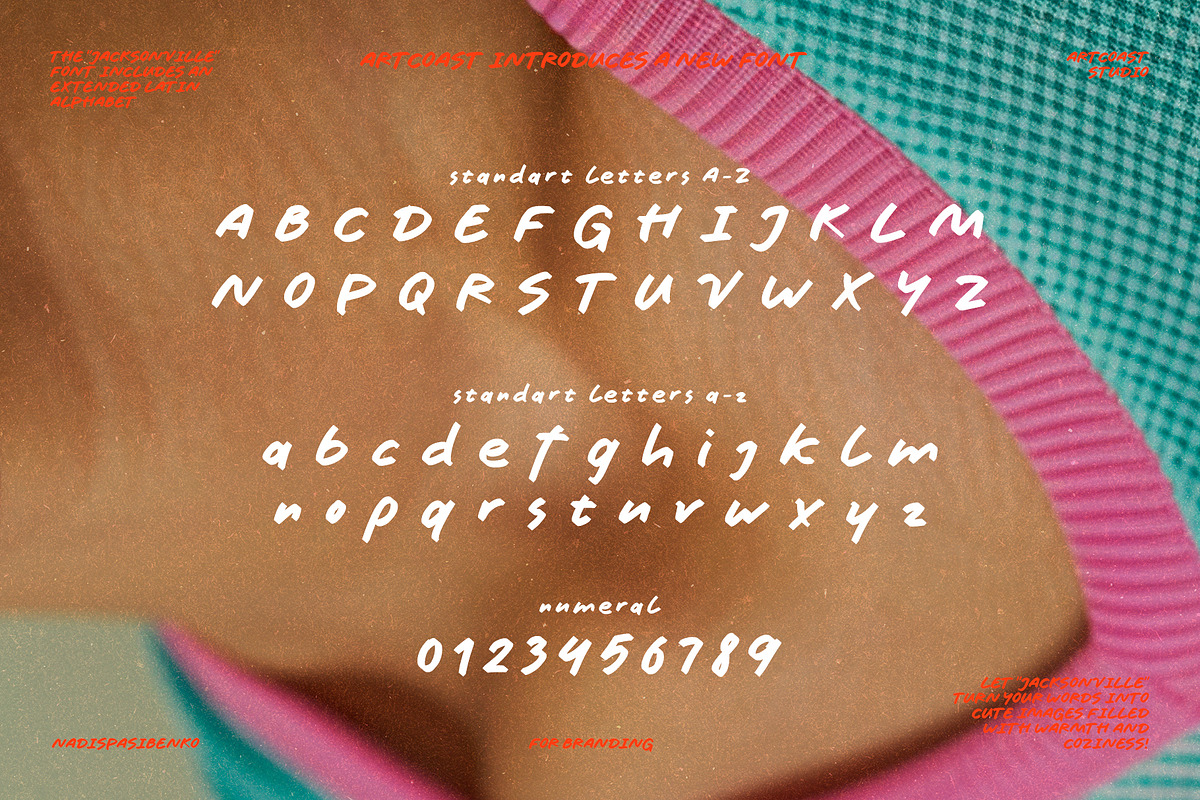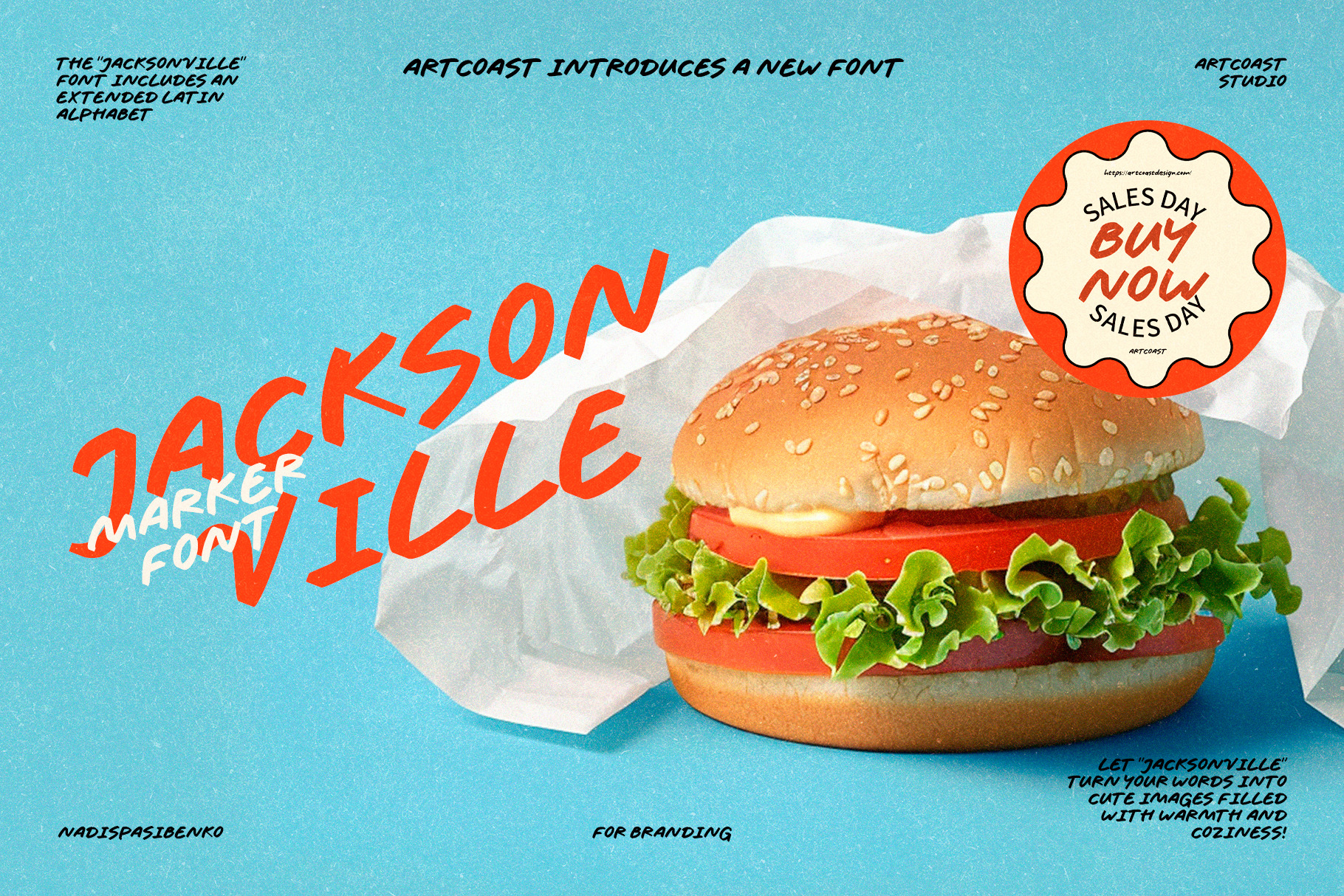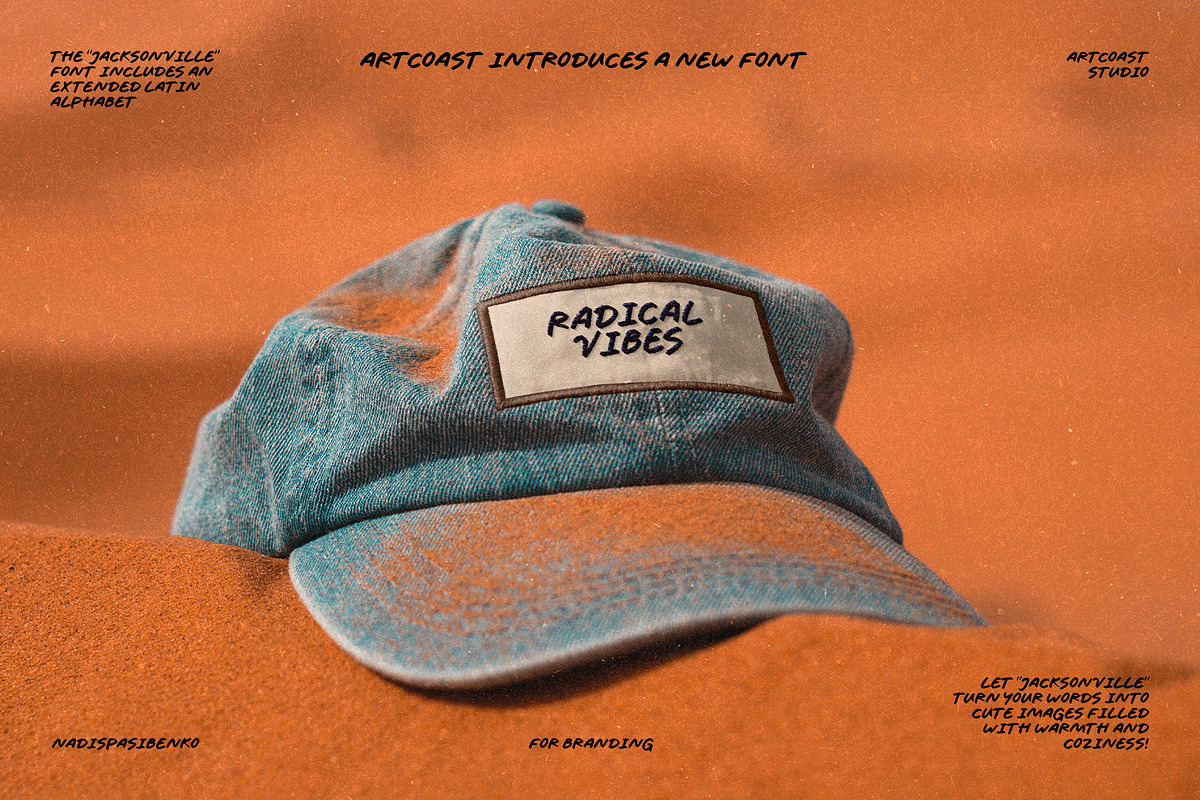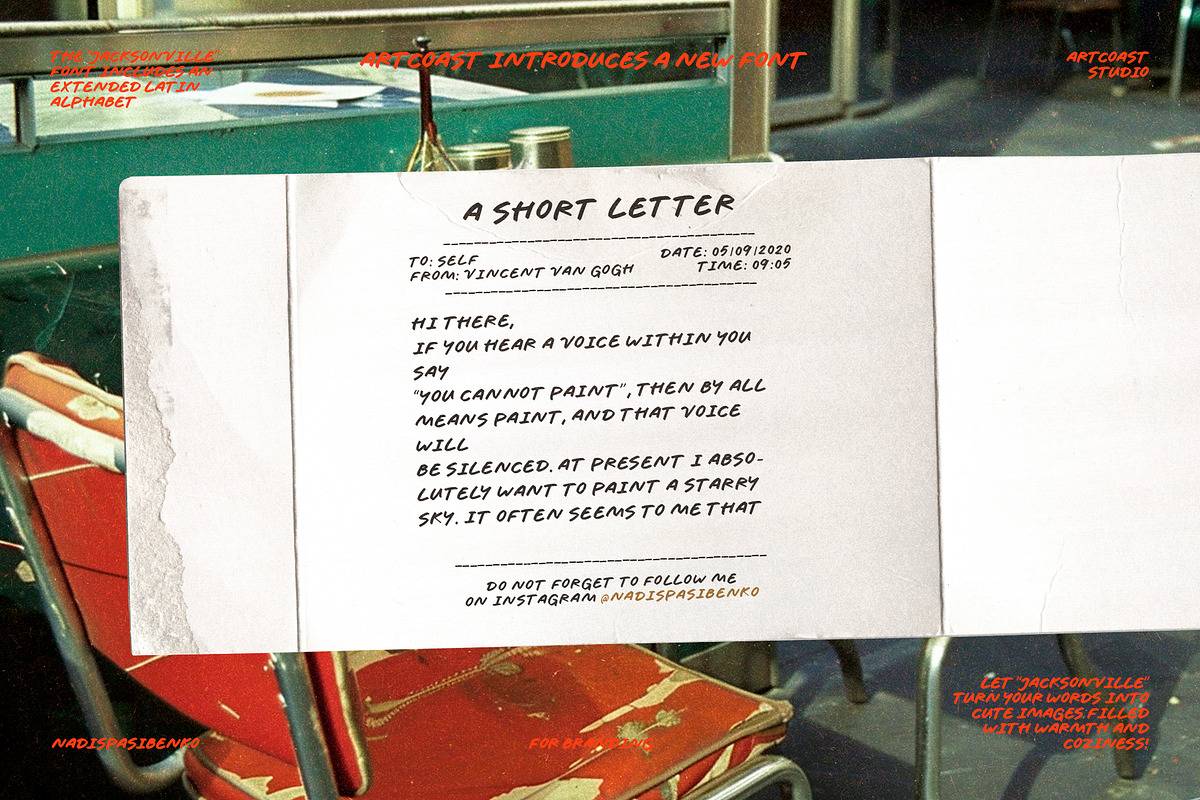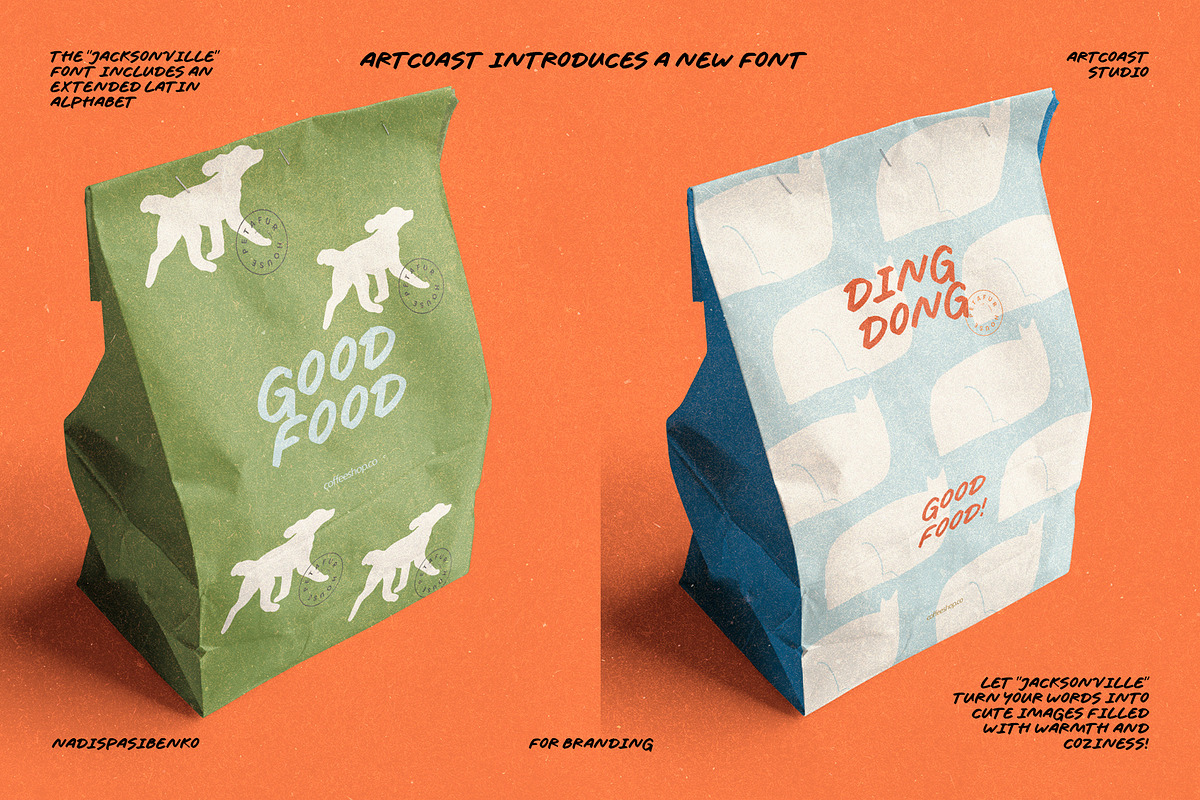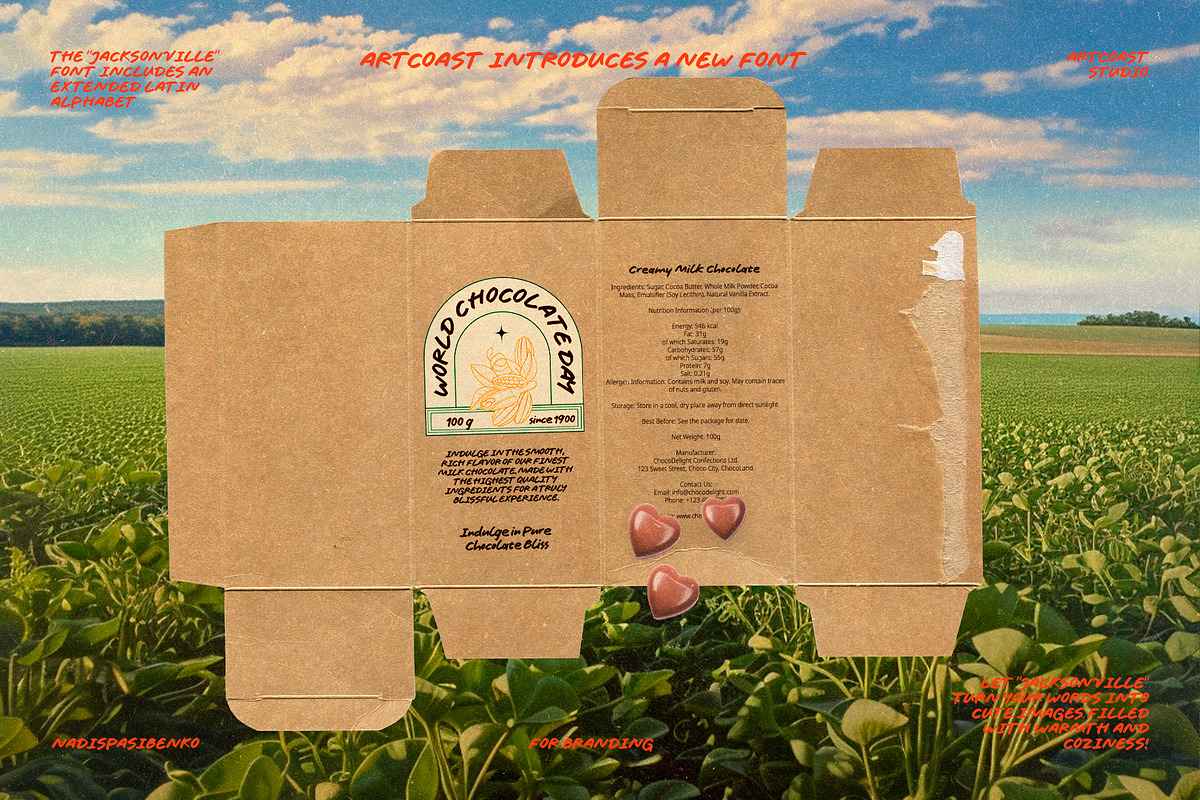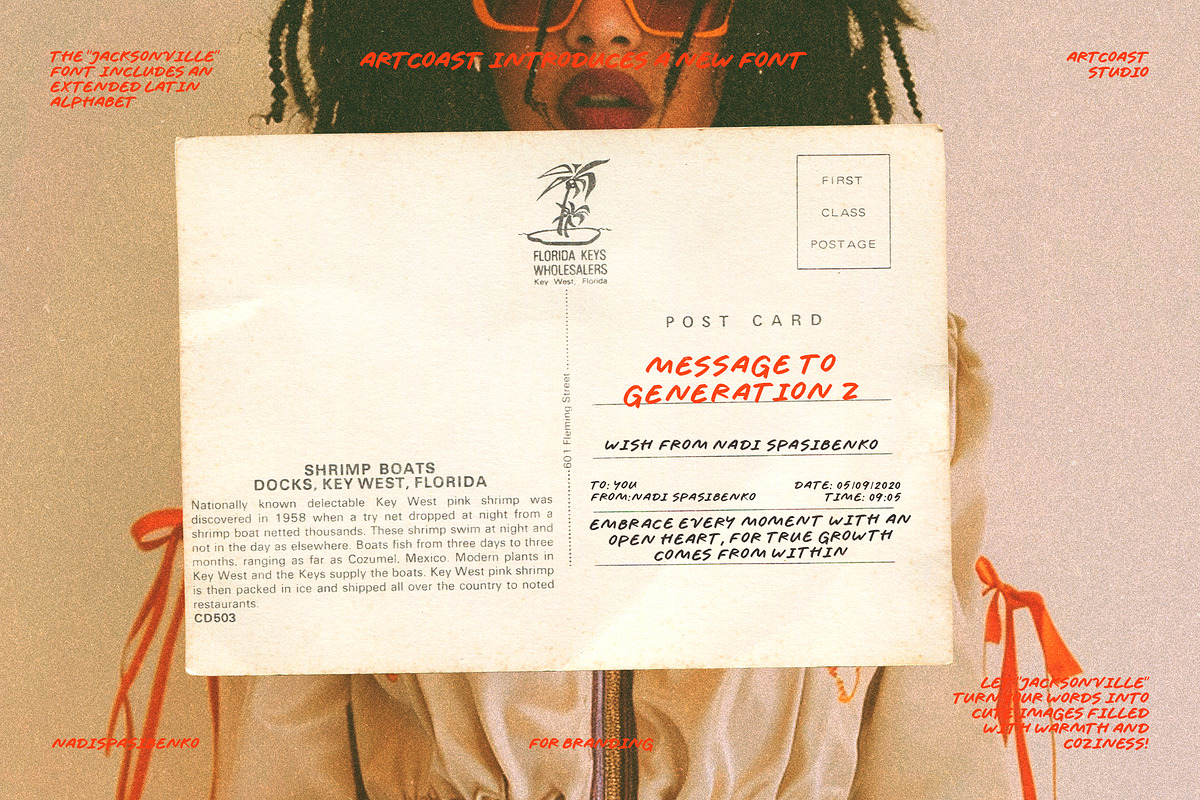
SA Jacksonville Marker Font
Jacksonville Marker Font
SAJacksonville is a unique handwritten font created in the style of marker writing. With its casual and dynamic nature, it perfectly captures the energy and vivacity of hand lettering. SAJacksonville is perfect for creating striking headlines, logos, packaging, branding, social media and other creative projects that require individuality and expressiveness. With its natural and friendly aesthetic, this font will add warmth and a personal touch to your designs.